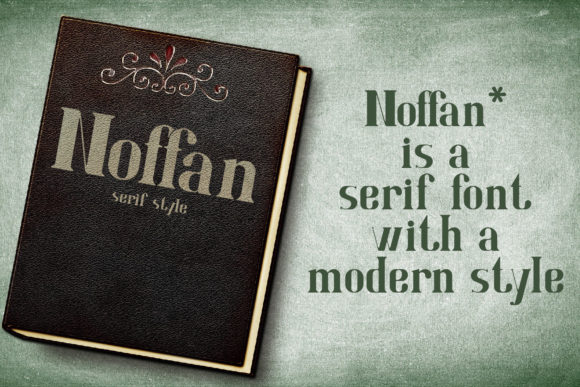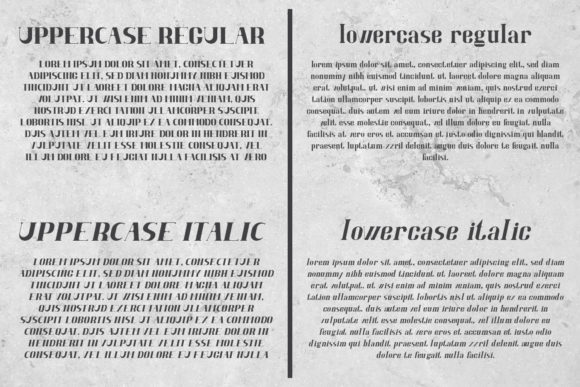
Introduction to Noffan Font
As a designer, you’ve been there – staring at a blank canvas, trying to bring your creative vision to life. But what happens when that perfect font eludes you? The struggle is real, but fear not, dear designers! Today, we’re excited to introduce you to the Noffan Font, a game-changing design resource that’s about to take your creative projects to the next level.
Imagine a font that’s not only beautiful but also versatile, with a unique blend of minimalism and thick lettered serifs that make it perfect for a wide range of projects. Whether you’re working on a logo, brochure, or website, the Noffan Font is sure to make your design stand out from the crowd.
Honest Review: Noffan Font
As a designer, I’m always on the lookout for high-quality design resources that can elevate my creative projects. Recently, I stumbled upon the Noffan Font, and I’m excited to share my honest review with you.
- Wide range of styles and weights
- Perfect for headers, titles, and body text
Overall, I’m impressed with the Noffan Font’s versatility and quality. It’s an excellent choice for personal projects and can be a great addition to any design resource library. While it may have some limitations, I believe it’s a valuable asset for designers who want to create stunning visual content.
To get the most out of the Noffan Font, experiment with different font sizes, colors, and styles to create a unique design. Also, consider combining the Noffan Font with other design resources, such as images and graphics, to enhance your creative project.
The Noffan Font is suitable for a variety of design projects, including branding, marketing materials, and digital products. Its high-quality design and transparent background make it an ideal choice for designers looking for a versatile and free download design resource.